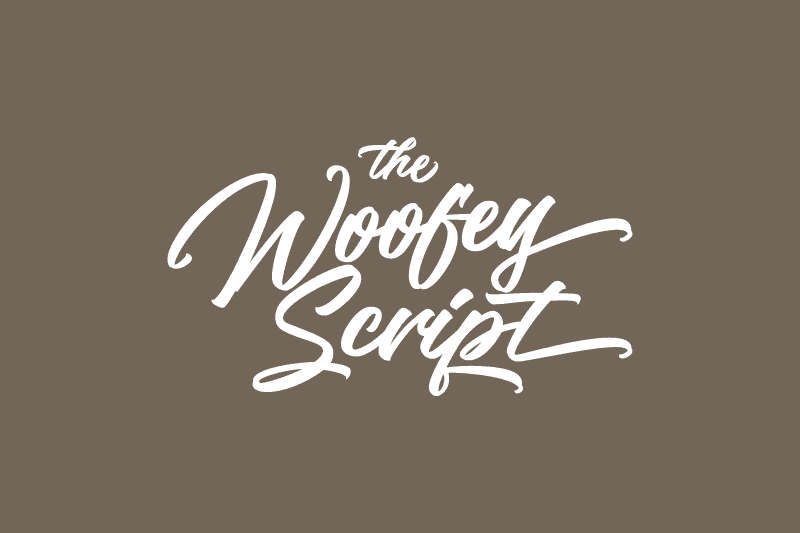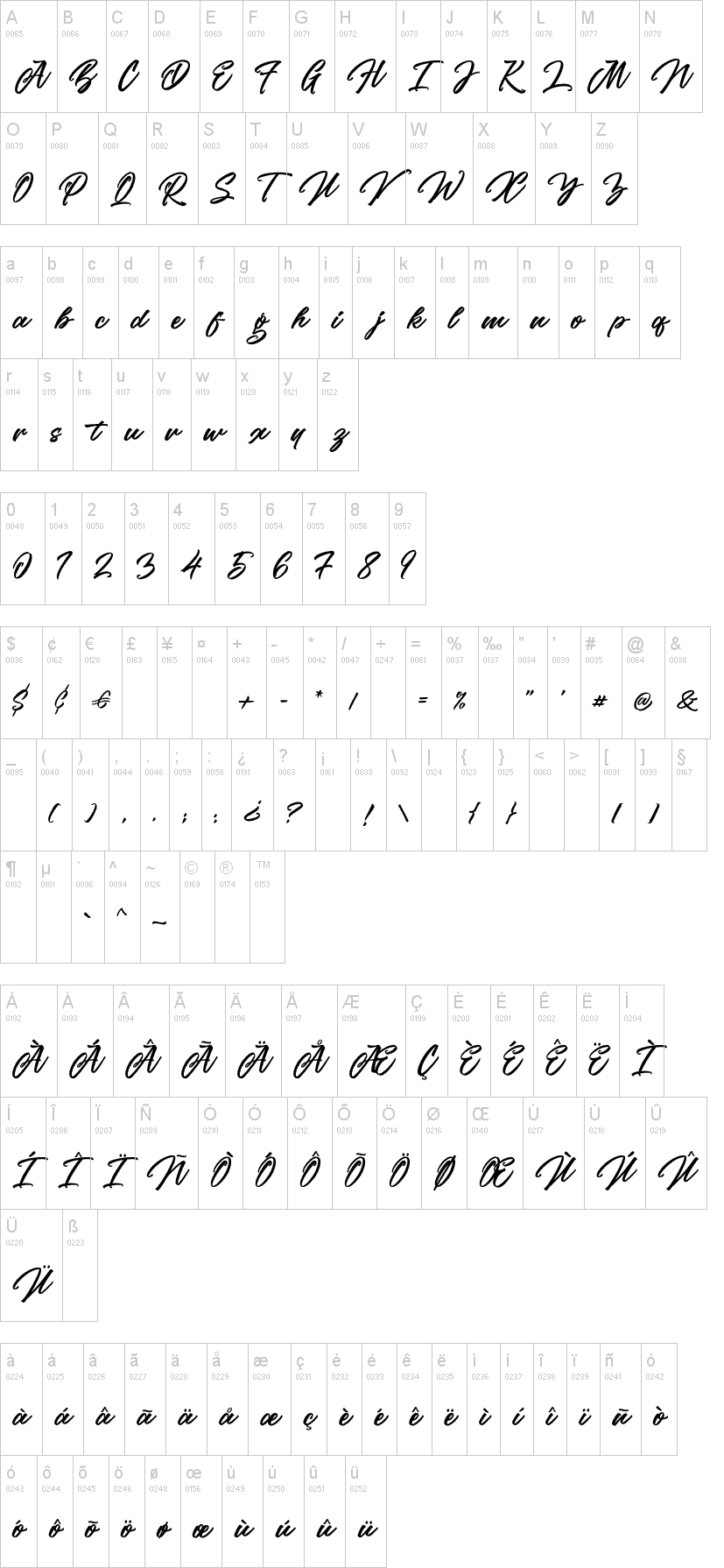
Discover The Woofey Script Font, part of the Brush collection—a versatile and unique font perfect for adding a personal touch to your projects. Download it for free and enjoy crafting designs with style, from invitations to social media posts. This font is available exclusively for personal use, giving you the freedom to create without limits. Unlock your creativity with The Woofey Script Font today!
The Woofey Script is a professional Brush font created by Thirtypath and may be downloaded for free and used for personal purposes. Free one offers all major characters in uppercase and lowercase and a few special ones.